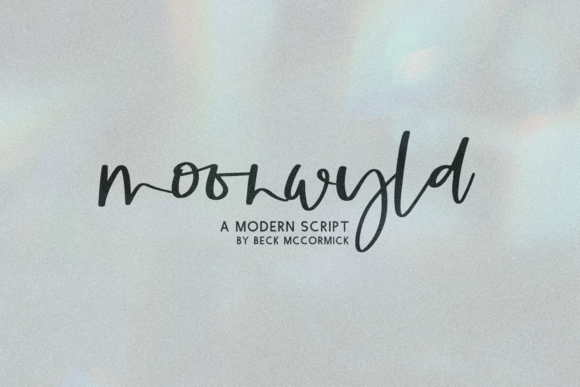
Step into the world of digital artistry with Moonwyld, a captivating script font that will transform your digital creations into breathtaking masterpieces. Experience the allure of handwritten elegance that adds a touch of warmth and charm to your designs, making them stand out from the ordinary. With Moonwyld, your words will dance across the screen, leaving a trail of visual delight that captivates and enchants your audience.
Unlike ordinary fonts, Moonwyld possesses an intrinsic ability to evoke emotions, stirring hearts with its gentle curves and playful strokes. It's not just a font; it's an artistic expression that breathes life into your digital dreams. Whether you're crafting eye-catching logos, enchanting invitations, or heartfelt personal messages, Moonwyld becomes your faithful companion, amplifying your creative vision and leaving an unforgettable mark.
With Moonwyld, you don't just type words; you paint stories, you weave emotions, and you create memories that last a lifetime. Its versatility knows no bounds, adapting seamlessly to a myriad of design projects, from graceful wedding invitations to vibrant social media posts. Unleash your imagination and let Moonwyld take you on a creative journey where every letter, every word, and every design becomes a reflection of your unique artistic soul.
Immerse yourself in the enchanting world of Moonwyld, where your creativity flourishes and your digital dreams come to life. With its captivating charm and endless possibilities, Moonwyld is more than just a font; it's an experience that will transform your designs into works of art. Embrace the magic of Moonwyld today and embark on a creative adventure that will leave you breathless.